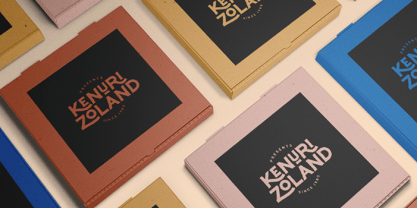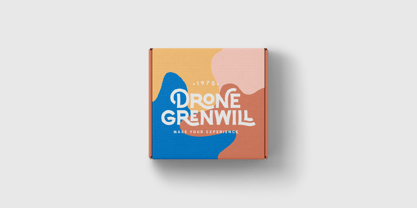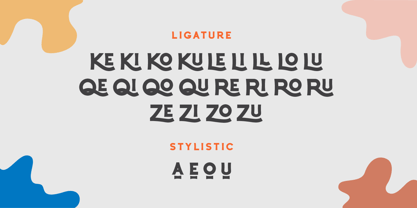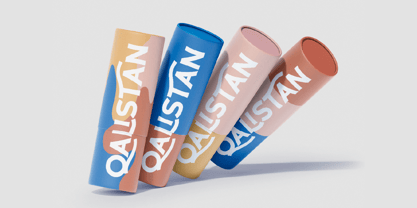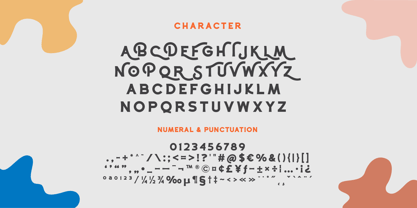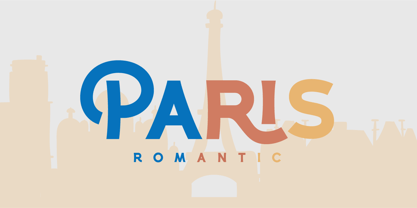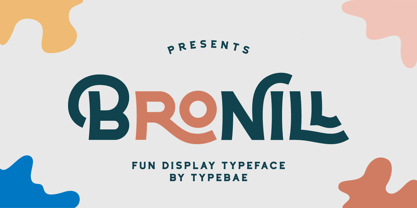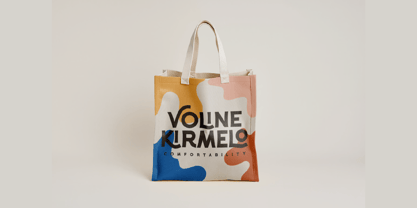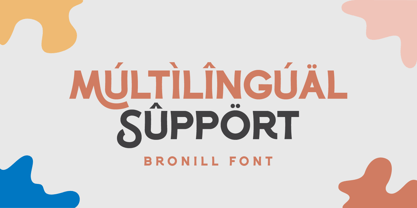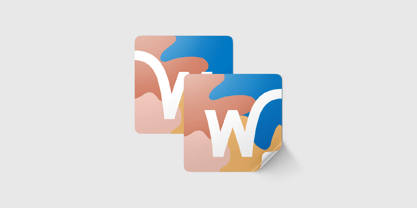
Bronill
by Typebae
The Bronill Font Family was designed by Iqbal Pauji and published by Typebae. Bronill contains 1 styles. More about this family
Bronill is a lively and fun display font with unique ligatures and quirky letterforms. Perfect for playful designs, branding, and creative projects, it adds a cheerful touch to any design. Whether for logos, posters, or children's products, Bronill brings joy and personality to your work! Features: - All Caps, Numeral & Punctuation - Stylistic Alternates & Ligatures - PUA Encoded & Multilingual Support